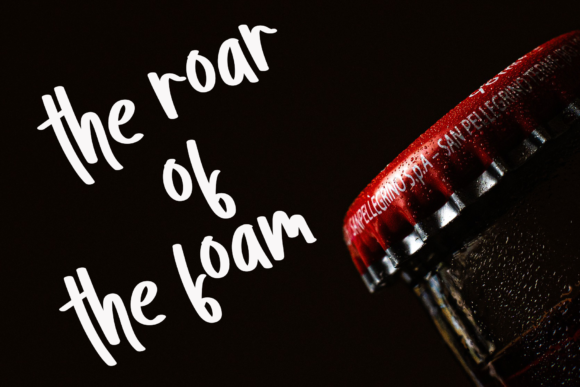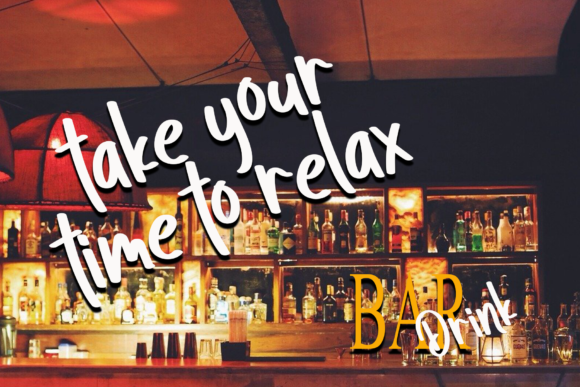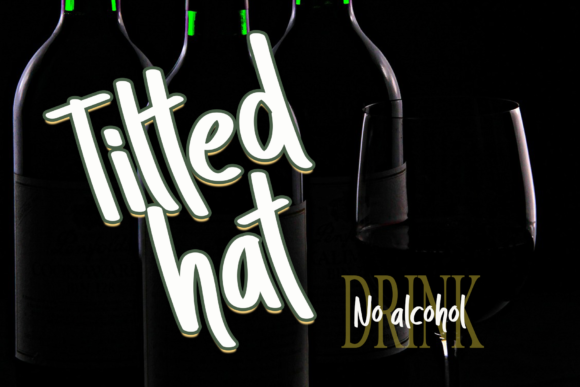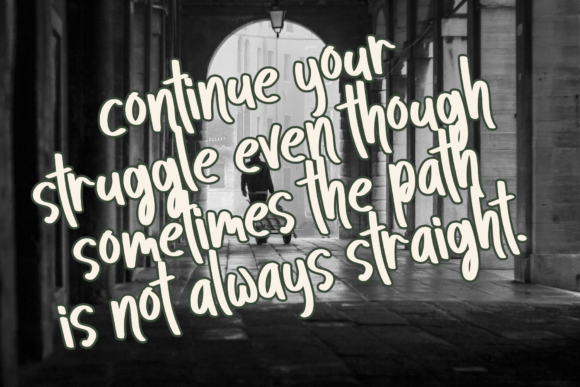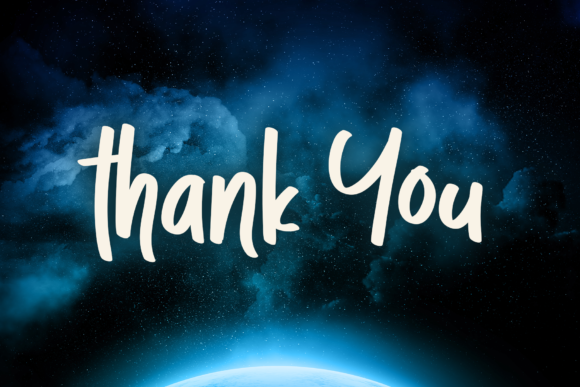
Star Work Font
About Star Work Font
“Star Work,” a free-flowing script font, has been thoughtfully crafted for a variety of design applications, including packaging products, invitation cards, flyers, mockups, event posters, and any project that demands high-quality vibes. With its beautiful and balanced characters, this font seamlessly integrates into a large design pool, making it a versatile choice for diverse creative endeavors.
The free-flowing nature of “Star Work” imparts a dynamic and graceful quality to each character, enhancing the visual appeal of your designs. Picture this font enhancing product packaging, where its high-quality vibes transform ordinary labels into visually captivating statements. The beautiful and balanced characters contribute to a harmonious presentation, making your products stand out with elegance.
For invitation cards, “Star Work” becomes a key element in setting the tone for special occasions. The script’s graceful style adds a touch of sophistication, creating invitations that are not only informative but also visually captivating.
In the realm of event posters, flyers, and mockups, “Star Work” injects energy and style. The font’s versatility ensures that it seamlessly adapts to different design contexts, making your promotional materials both eye-catching and memorable.
The beauty of “Star Work” lies in its ability to enhance a variety of design projects, thanks to its well-crafted characters and high-quality vibes. As you integrate this font into your creative endeavors, may it bring a sense of fluidity and elegance, turning your designs into expressions of refined aesthetics.